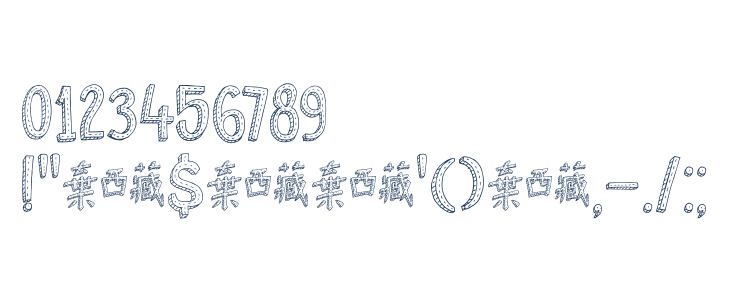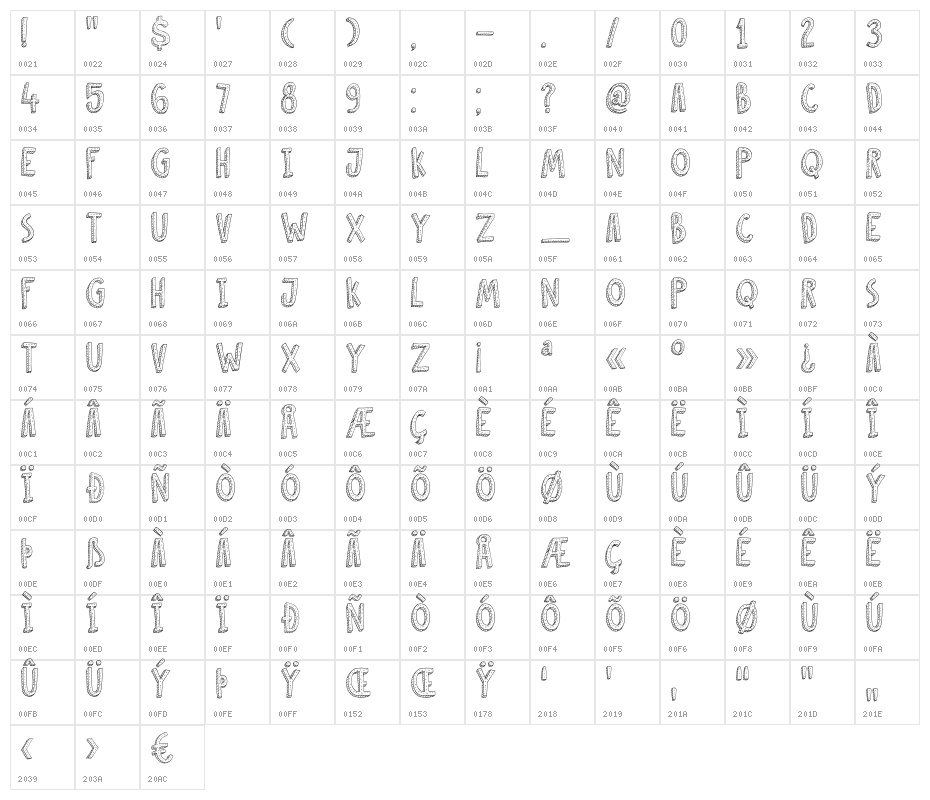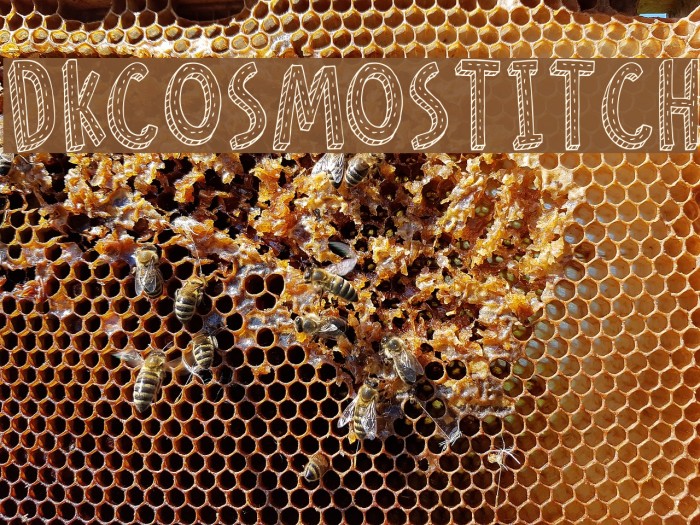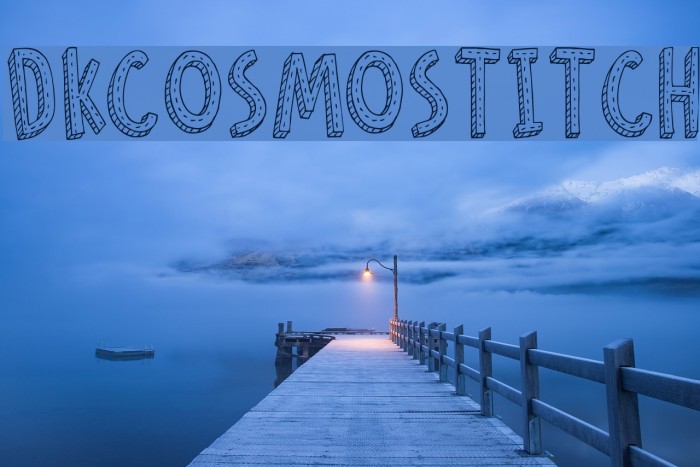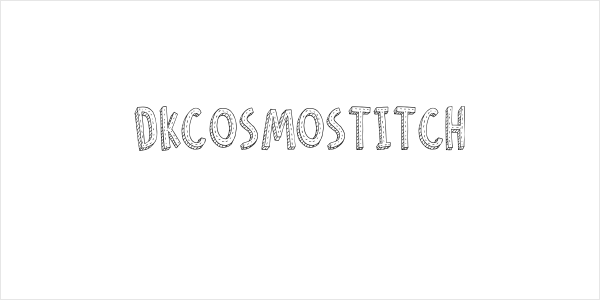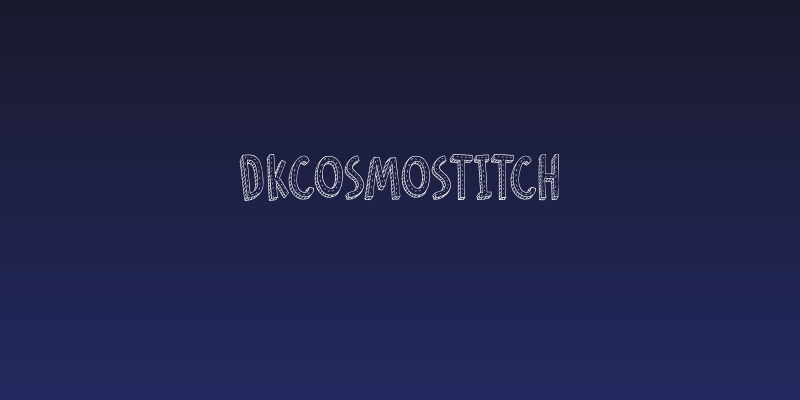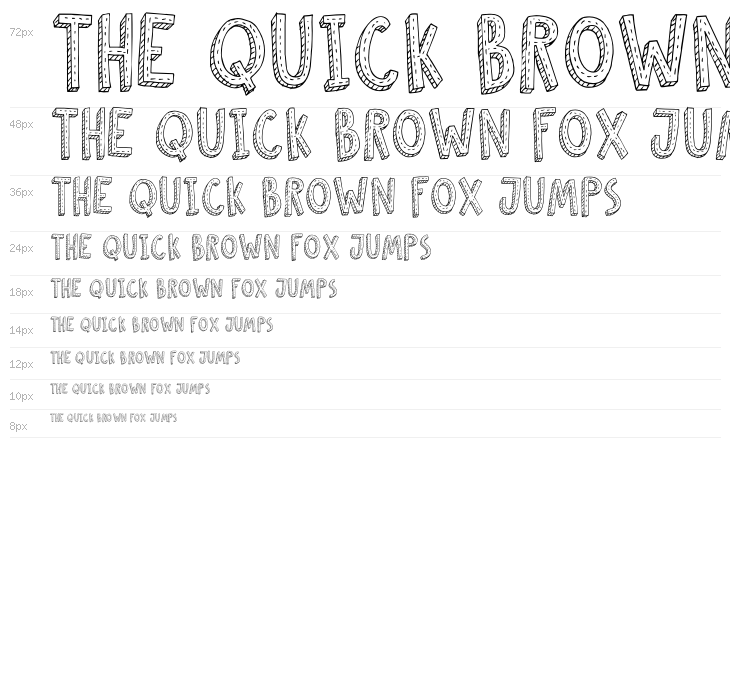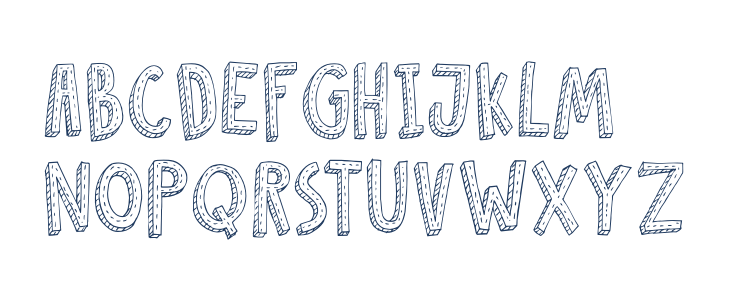
DKCosmoStitch Font
DKCosmoStitch Description
This font features a playful and whimsical design, characterized by its hand-drawn, stitched appearance. Each letter is outlined with a dotted pattern, resembling a sewing stitch, which adds a crafty and homemade feel. The characters are bold and slightly irregular, enhancing the casual and informal style. The font maintains a consistent weight throughout, with medium contrast in stroke thickness. Its unique style makes it stand out, perfect for projects that require a touch of creativity and fun.
| Proposed Projects | Ideal for children's books, DIY craft projects, playful branding, and creative posters. |